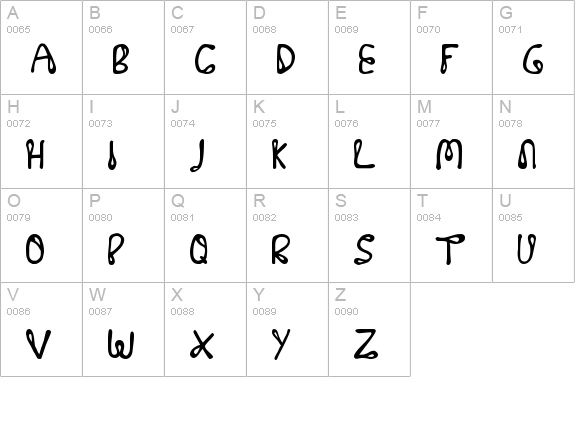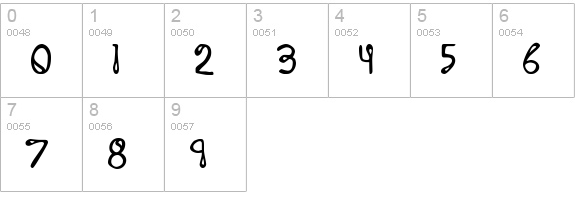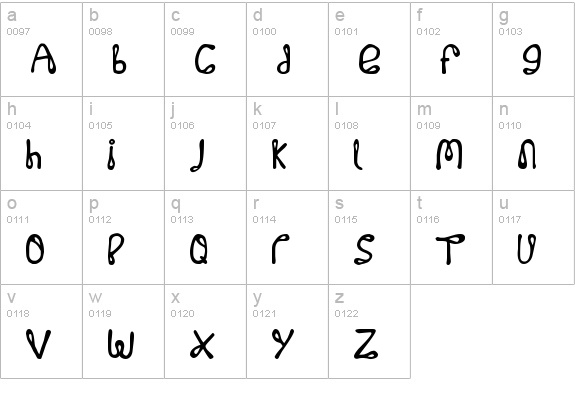
32768 NO Font Details
Introducing the 32768 NO font, a modern and sleek typeface that is perfect for a wide range of design projects. This versatile font features clean lines and a contemporary feel, making it ideal for both digital and print applications. With its unique character shapes and smooth curves, 32768 NO adds a touch of sophistication to any design. What sets 32768 NO apart is its exceptional readability and legibility, ensuring that your message is always clear and easy to read. Whether you're creating a logo, poster, website, or any other design project, this font will help you make a lasting impression. And the best part? 32768 NO is available for free download at FontsMarket.com! That's right, you can get your hands on this amazing font without spending a dime. So why wait? Download 32768 NO today and elevate your designs with this stylish and versatile typeface.